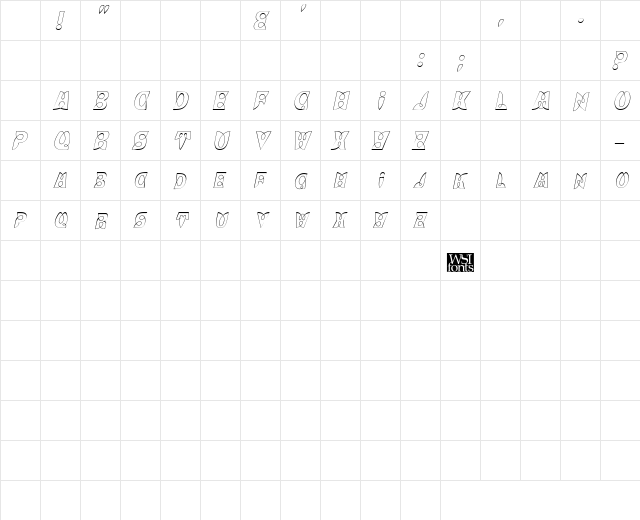
BrashCapsOutline Italic
Design Context for BrashCapsOutline
BrashCapsOutline is built around its visual character rather than neutral utility - its distinctive forms are designed to make an impression at display sizes. The slanted form adds forward momentum and visual energy.
Font Pairing: Pair with a clean neutral sans-serif for body copy to let BrashCapsOutline's character lead without overwhelming the composition.
Pro Tip: Use BrashCapsOutline exclusively at display sizes - it was designed to be seen, not read at length. Let a neutral companion handle body copy.